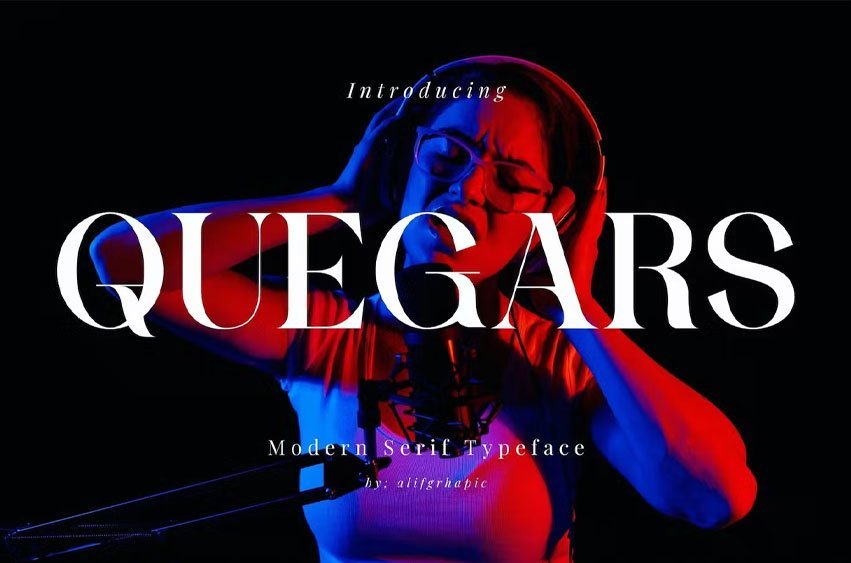
Quegars Font A beautiful series of letters is encapsulated in this ‘Quegars’ font. Neat lettering is perfect for writing needs that are modern and pleasing to the eye, there is a Modern impression but still looks Elegant when used for writing. Tidiness in the manufacture of each letter, is our top priority. You can have fun and be creative using this font product we made, because the results will definitely be very satisfying.